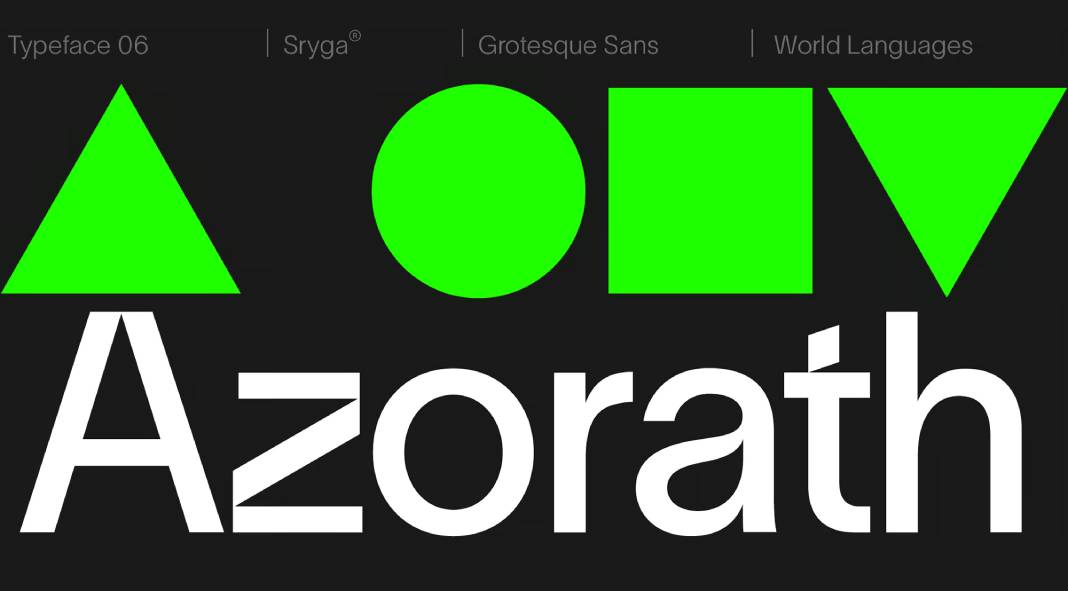
Introducing the Azorath Font Family: Where Brutal Strength Meets Graceful Elegance.
In the world of typography, there are fonts that speak loudly and fonts that whisper softly. And then, there’s Azorath—a font family that defies convention, masterfully marrying the bold, unyielding lines of brutalist architecture with the gentle, flowing curves of grace and elegance. Azorath, designed by Sryga, is a groundbreaking typeface that demands attention, intriguing the eye with its stark interplay of strength and sophistication.
Azorath is not just a font; it’s a visual narrative waiting to be told. With each glyph, it weaves a story of innovation and versatility, making it a perfect choice for impactful headlines and delicate text alike. This extraordinary typeface provides a canvas for creating captivating stories that leave a lasting impression on any audience.
Strength in Versatility
One of the standout features of Azorath is its remarkable versatility. This font family effortlessly transitions between roles, adapting to the needs of any project. Whether you are looking to make a bold statement or convey a sense of delicate refinement, Azorath has you covered. Its wide range of weights and styles ensures that it’s suitable for a broad spectrum of design applications, from advertising and branding to editorial layouts and web design.
The Marriage of Brutalism and Elegance
What sets Azorath apart is its ability to unite two seemingly contradictory design elements: brutalism and elegance. Brutalist architecture is known for its rugged, raw, and unapologetic aesthetic, characterized by exposed concrete, harsh lines, and a distinct lack of ornamentation. Azorath takes these very principles and fuses them with a sense of graceful fluidity and subtle curvature.
The result is a font family that commands attention while remaining visually engaging. Whether you are designing a poster that requires a strong, authoritative presence or crafting an invitation that demands a touch of sophistication, Azorath effortlessly bridges the gap between these design styles.
A Unique Design Language
Azorath’s uniqueness lies not only in its innovative design but also in its ability to communicate with viewers. Each glyph in the font family tells a story of its own, and when combined, they form a visual language that resonates with the reader. This distinctive design language fosters memorable brand recognition and helps create an emotional connection between the content and the audience.
The Azorath Experience
Using Azorath in your projects means embracing the fusion of raw power and graceful finesse in the world of typography. This font family is not just a tool; it’s an opportunity to make a statement, to provoke thought, and to create visually captivating narratives. Whether you’re designing a magazine spread, a website, or a logo, Azorath allows you to infuse your work with a unique visual character that can set it apart from the rest.
The Azorath font family by Sryga is a testament to the endless possibilities of typography. Its bold and daring aesthetic, combined with its elegance and versatility, opens the door to a world of creative opportunities. Azorath allows designers to challenge the status quo and create designs that are both compelling and unforgettable. By introducing the Azorath font family to your toolkit, you have the power to transform your projects into captivating works of art where raw strength harmonizes with graceful finesse.